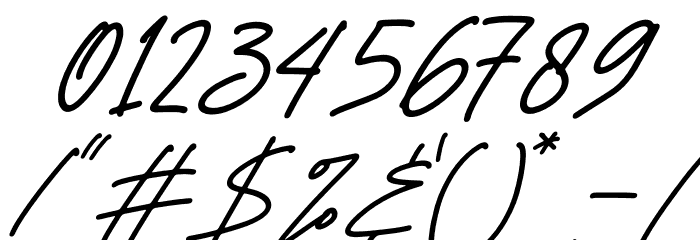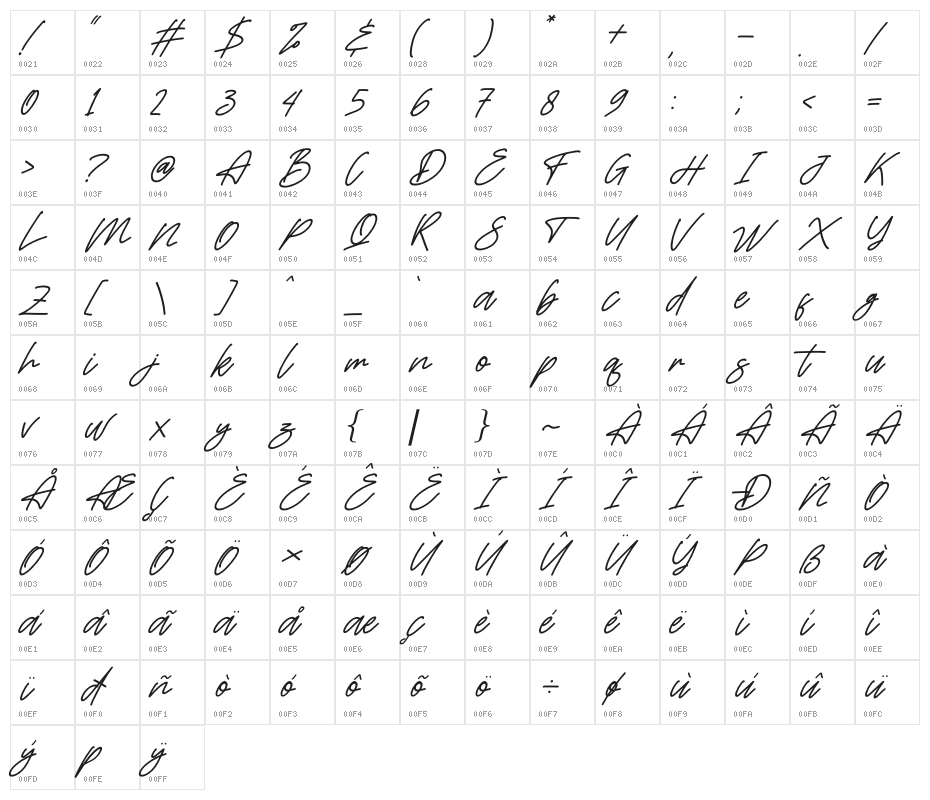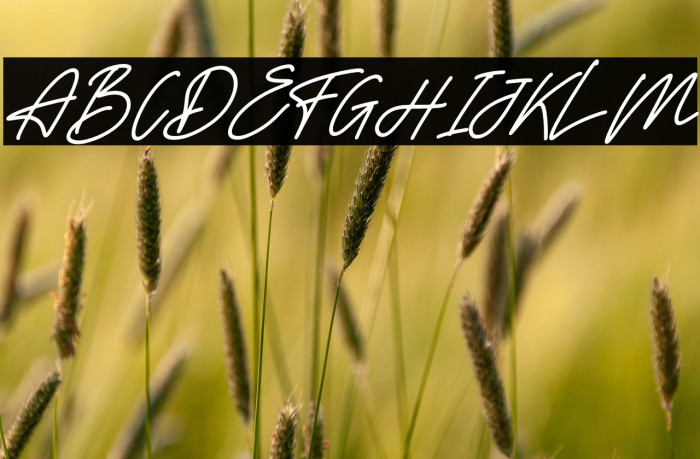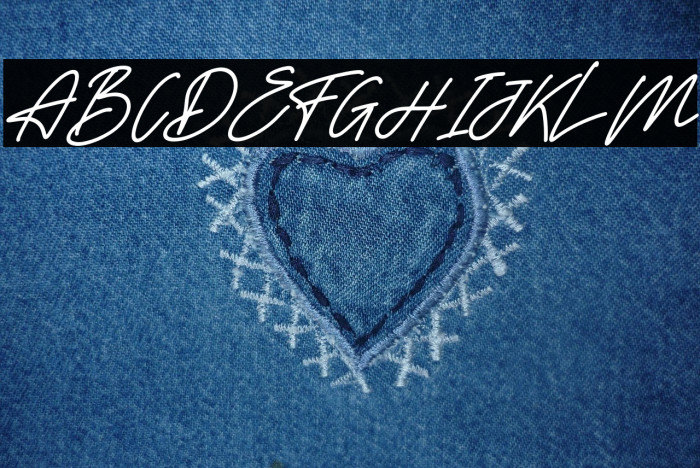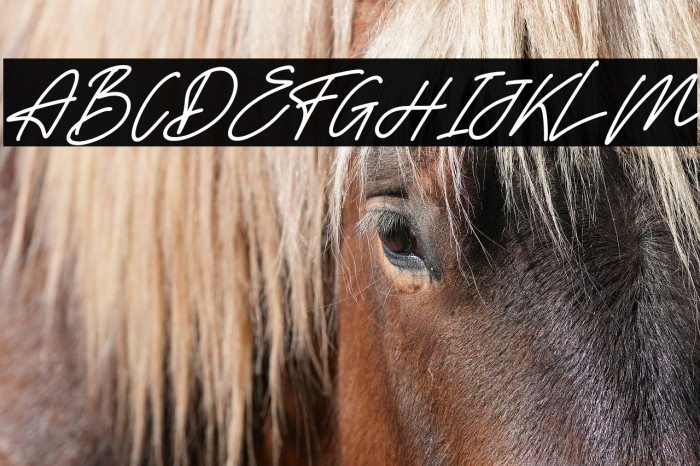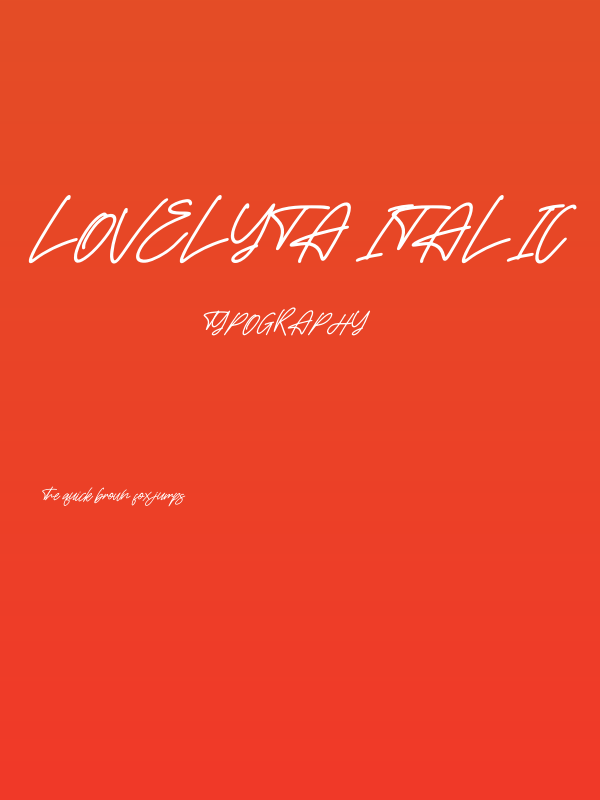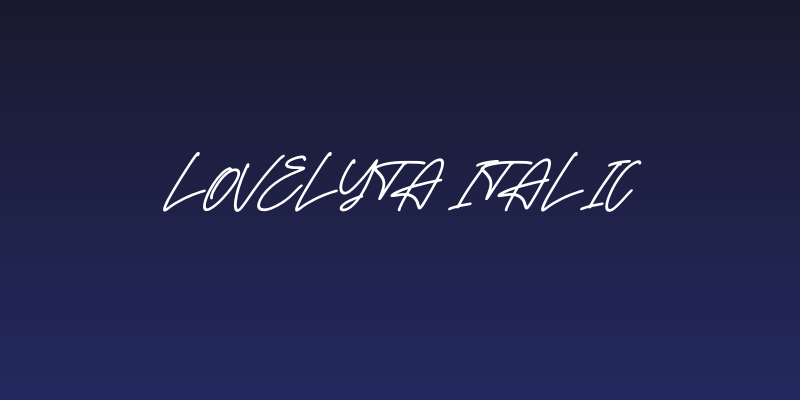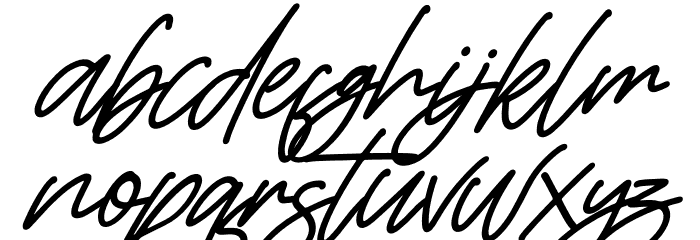
Lovelyta Italic Font
Lovelyta Italic Description
This font exudes a dynamic and fluid style, characterized by its cursive, handwritten appearance. The letters are elegantly slanted, giving a sense of motion and grace. The strokes are smooth and continuous, with a natural flow that mimics the fluidity of handwriting. The uppercase and lowercase letters maintain a consistent style, while the numerals and special characters integrate seamlessly into the overall design. The font's aesthetic is both modern and personal, making it suitable for projects that require a touch of elegance and individuality.